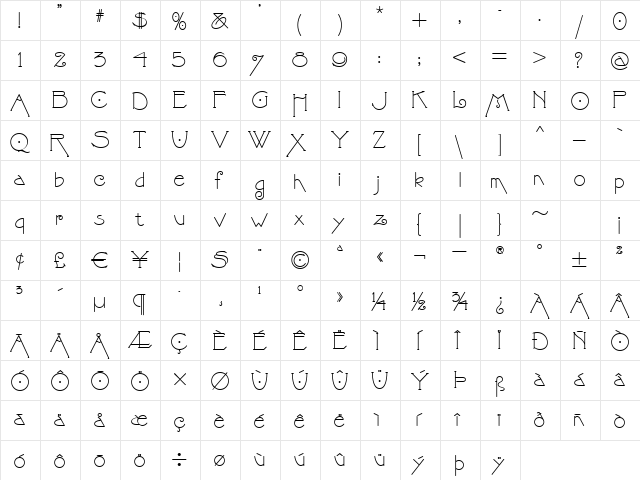
StrongsDraughtsman Light
Design Context for StrongsDraughtsman Typeface
StrongsDraughtsman is a composed and adaptable typeface that performs quietly and consistently across a wide range of design contexts. The delicate stroke weight brings airiness and refinement to layouts.
Pro Tip: Use StrongsDraughtsman in both headline and body roles to test its range before committing to a single application.